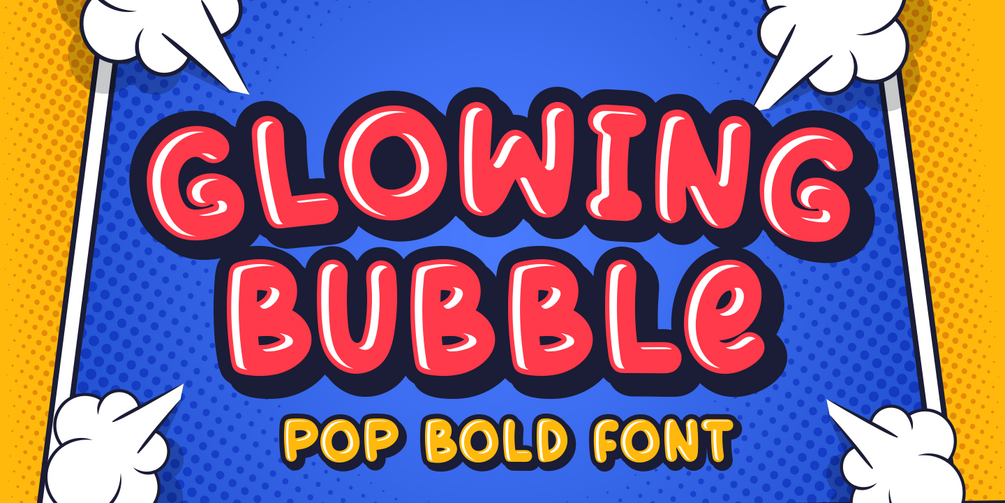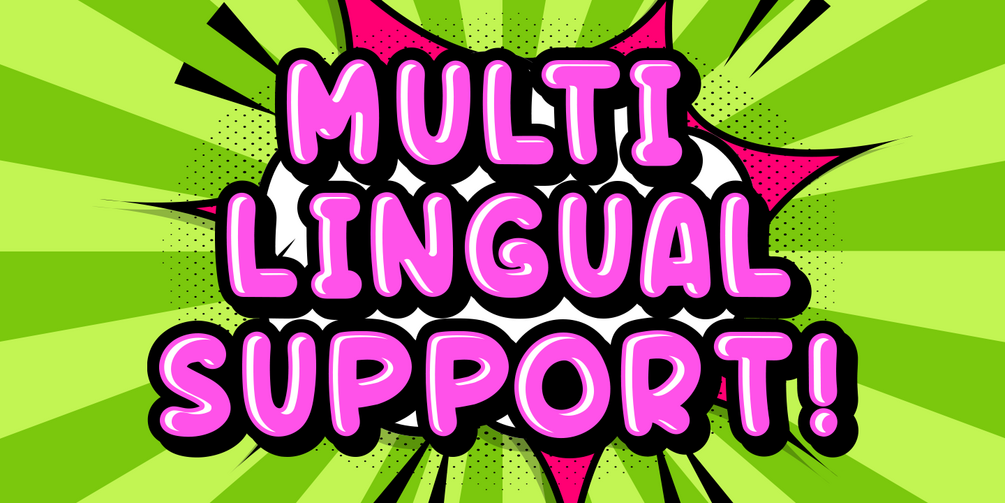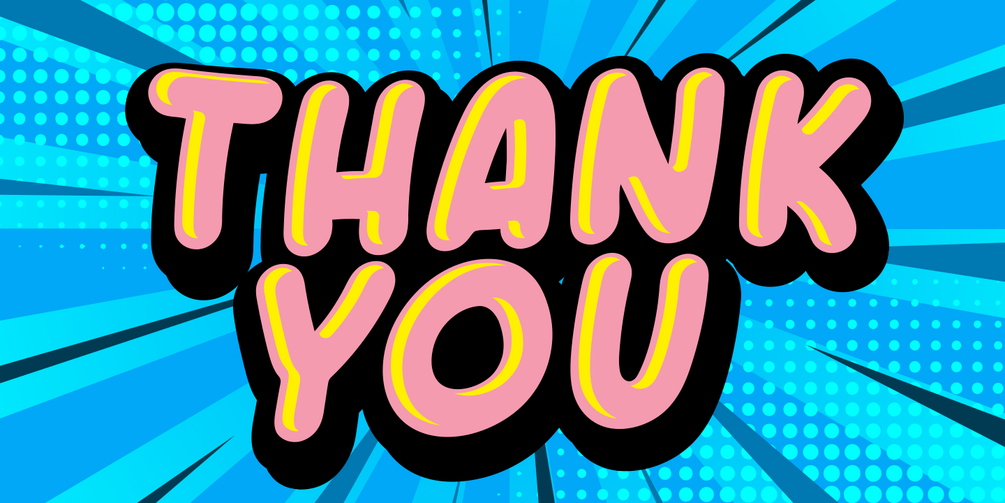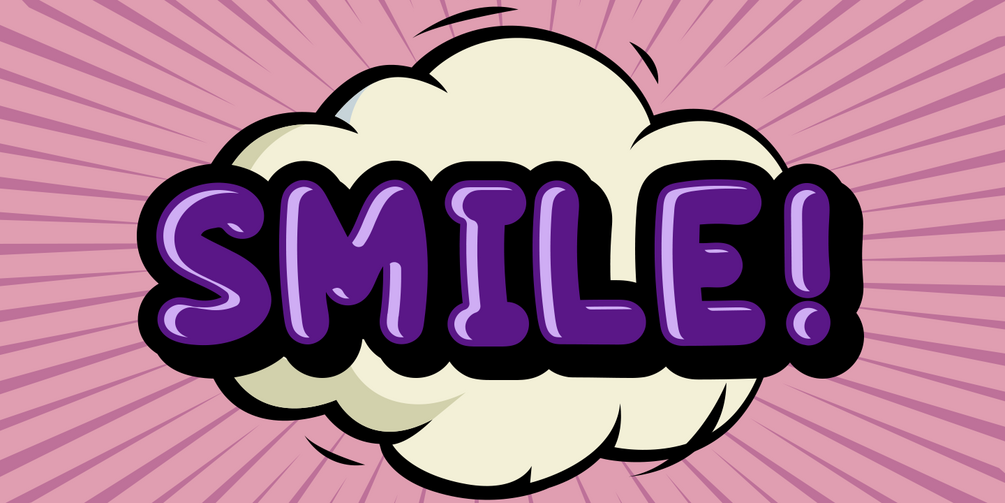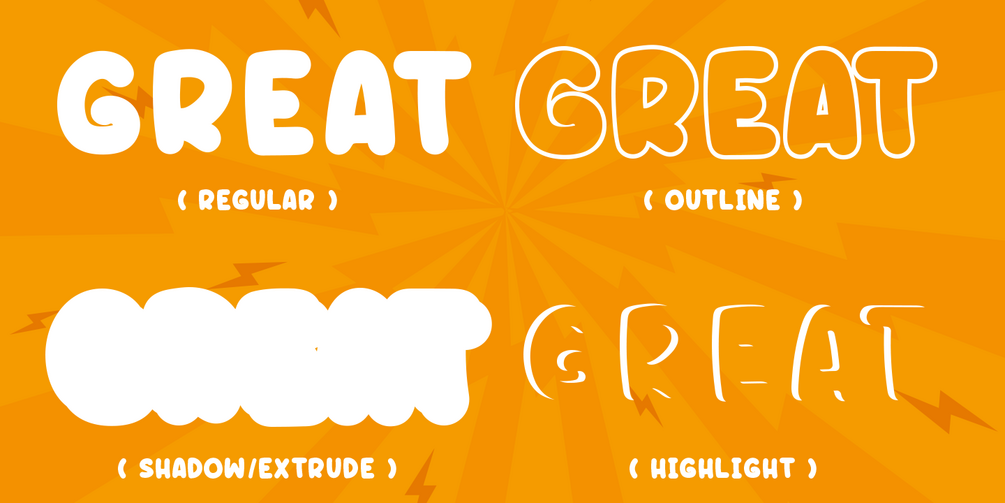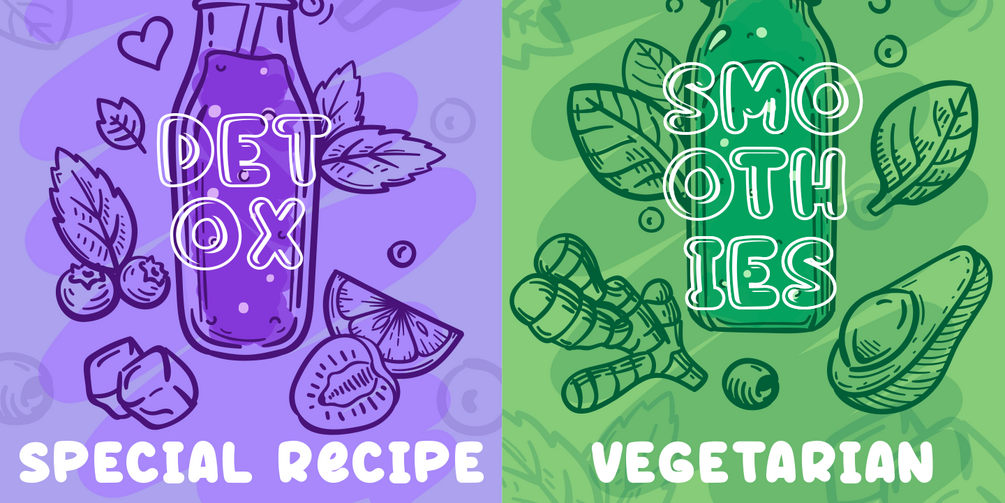
Glowing Bubble - Pop Bold Fonts
Introducing the new fonts, Glowing Bubble.
Glowing Bubble is a Pop, Bold and Retro fonts.
Good for your brand cute brand. as long as you can matching your layout.
Glowing bubble comes with 4 style :
• Regular
• Outline
• Shadows/Extrude
• Hightlights
• Multilingual Language.